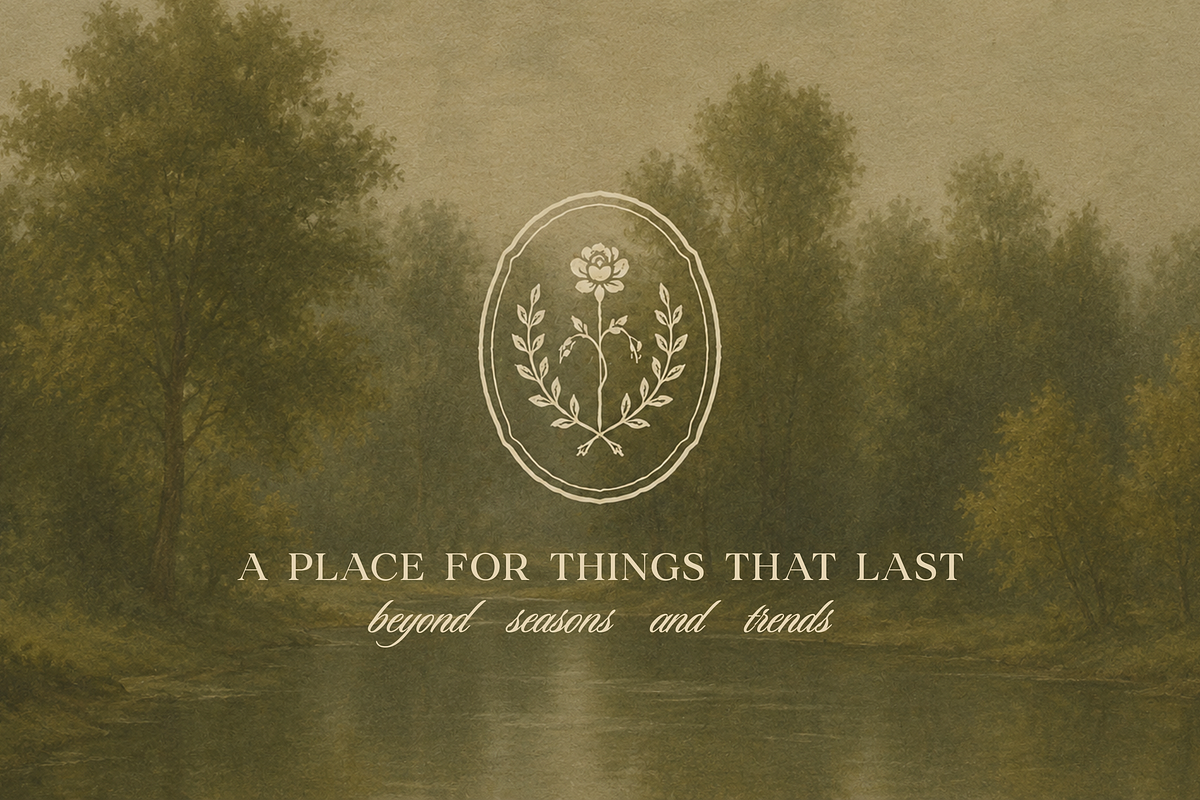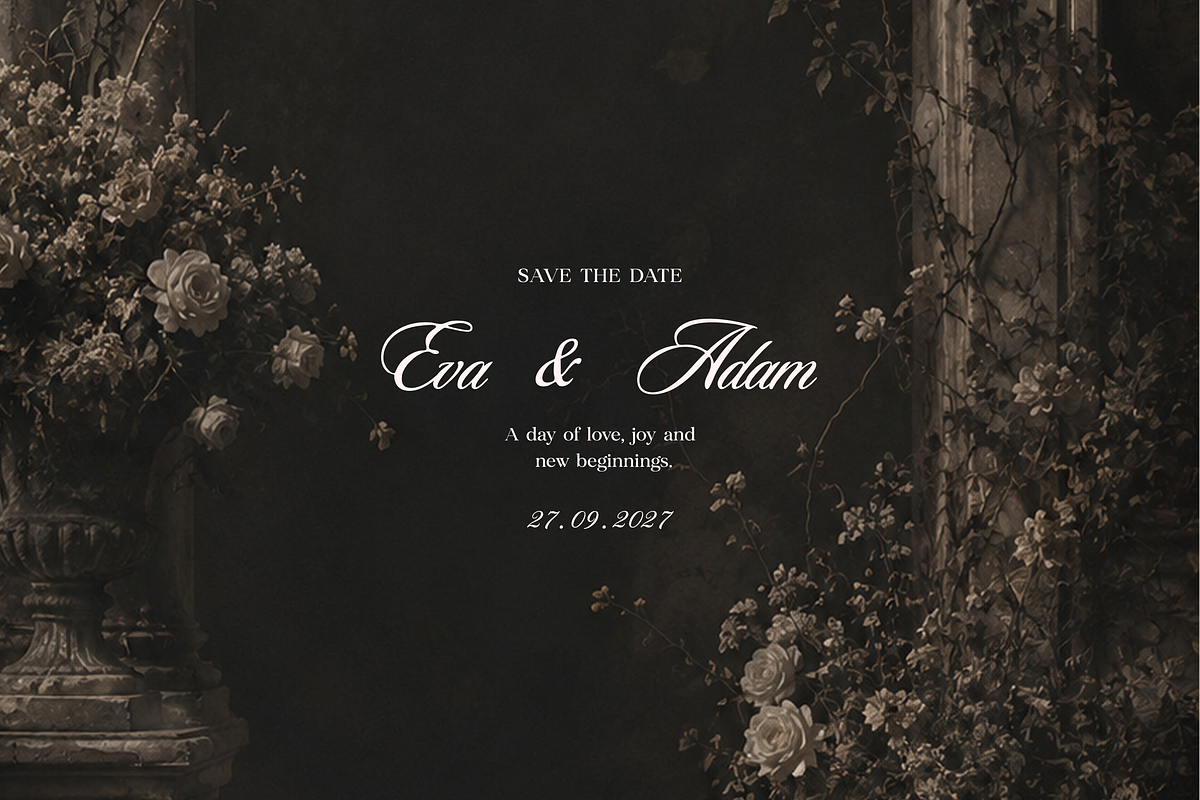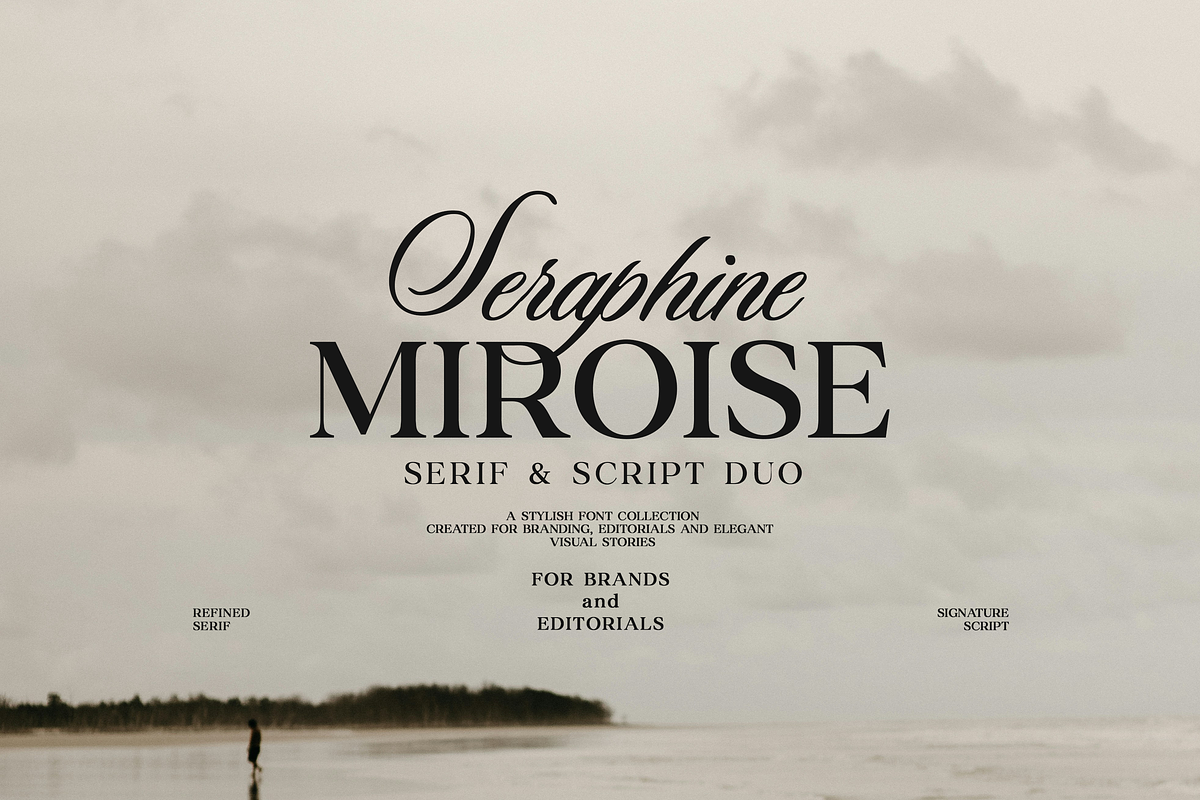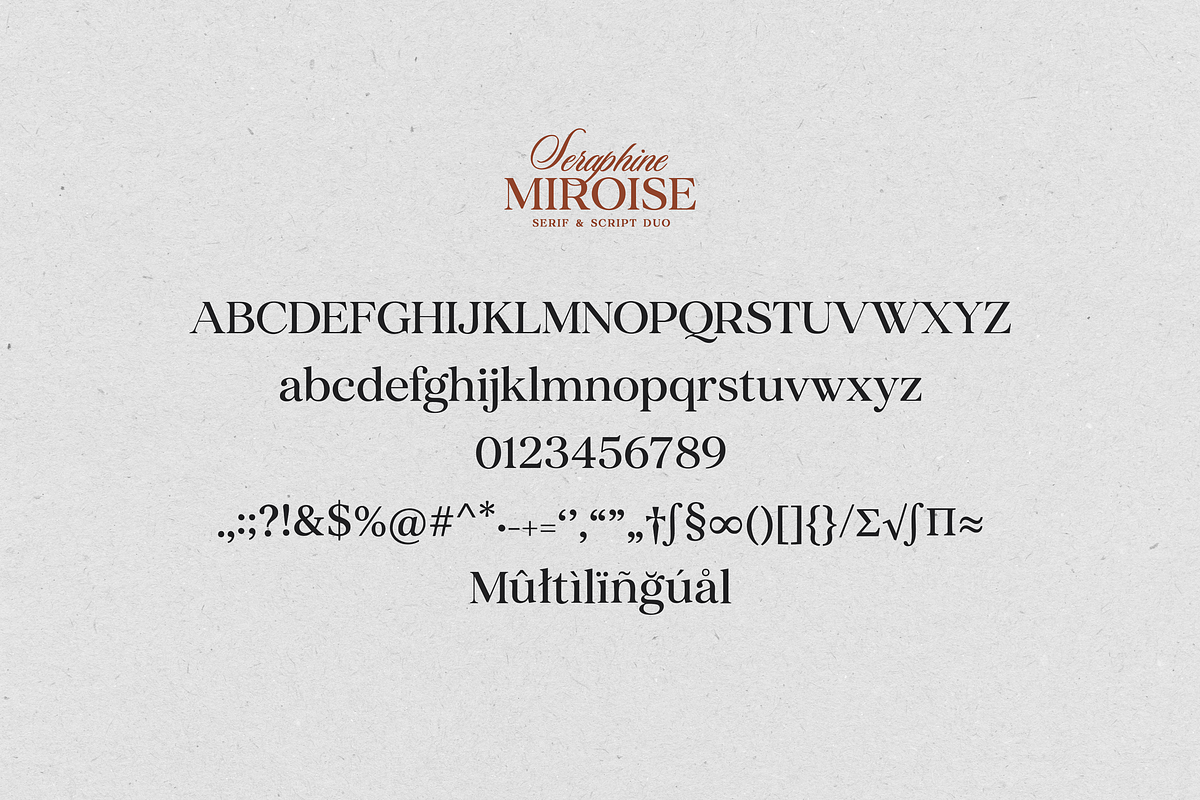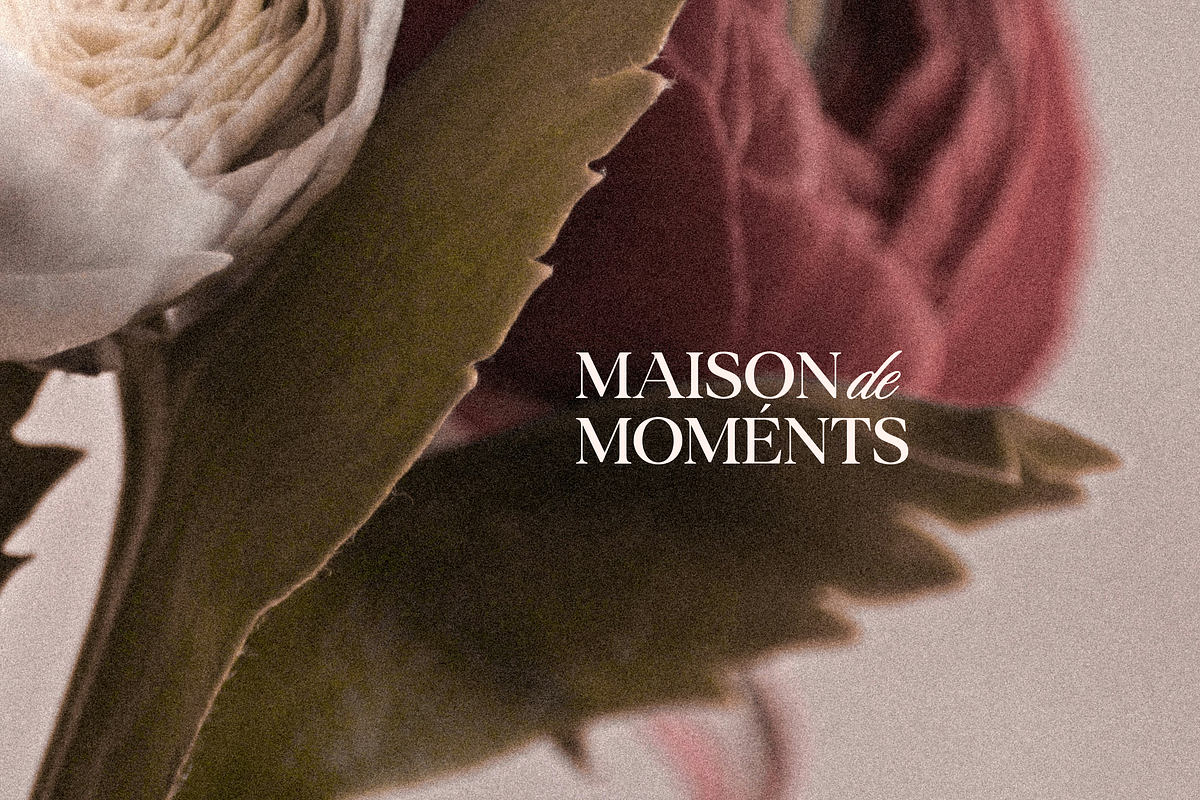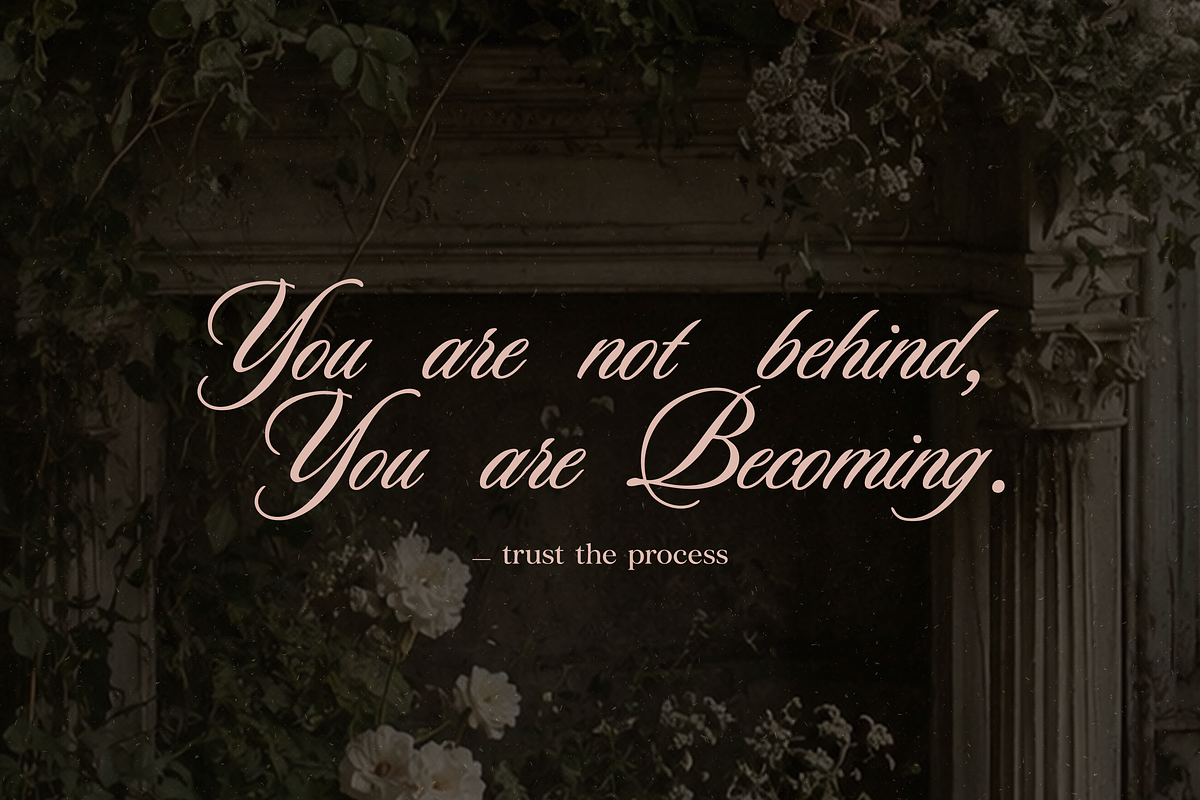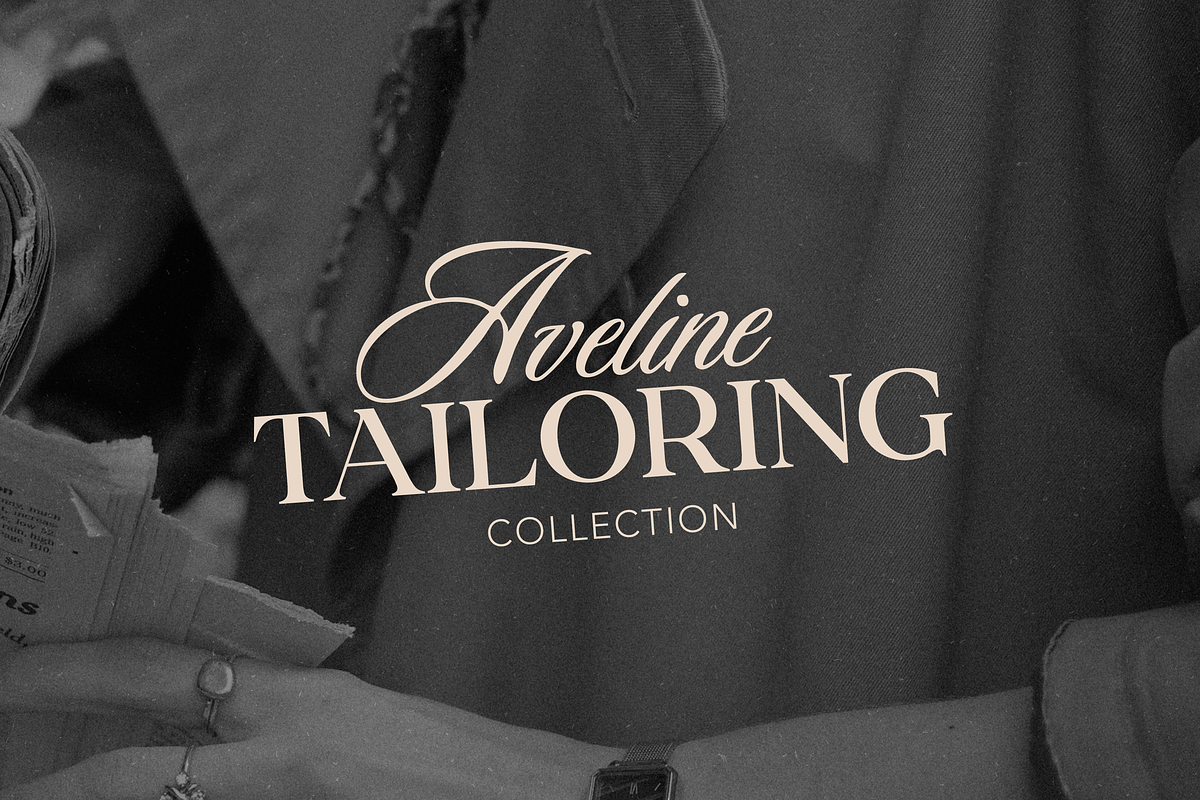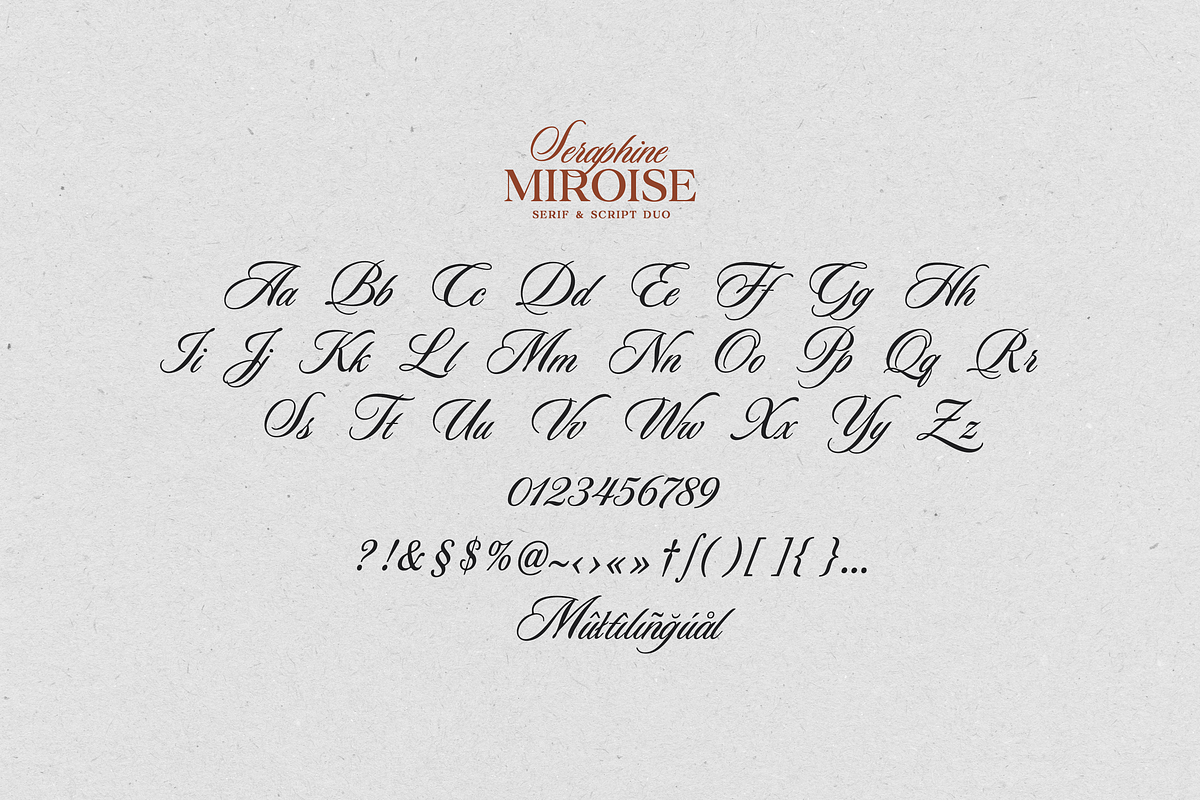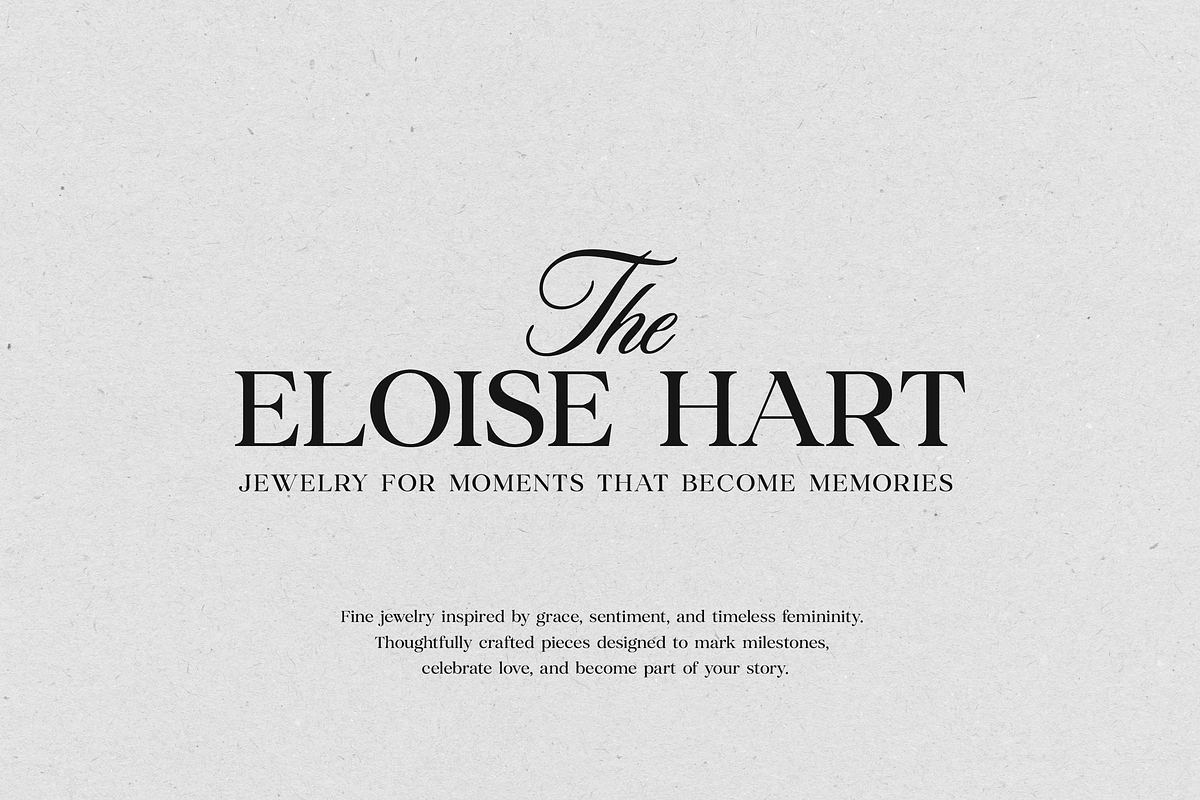
Seraphine Miroise Font Duo
Seraphine Miroise Font Duo: Elegant Serif & Script for Quiet Luxury Branding.
This duo brings together two different voices: a graceful high-contrast serif with a calm editorial presence, and a flowing signature script that feels personal, soft and expressive. Use them together to create a brand identity that feels polished, romantic and quietly expensive - without becoming overly decorative.
Seraphine Miroise was created for designers, brand owners, photographers, wedding creatives, beauty studios, fashion labels and boutique businesses who need typography that can carry emotion, elegance and trust.
Language Support: English, French, German, Spanish, Portuguese, Italian, Dutch, Danish, Norwegian, Swedish, Finnish, Icelandic, Irish, Scottish Gaelic, Welsh, Faroese, Estonian, Albanian, Catalan, Galician, Luxembourgish, Basque, and Afrikaans.